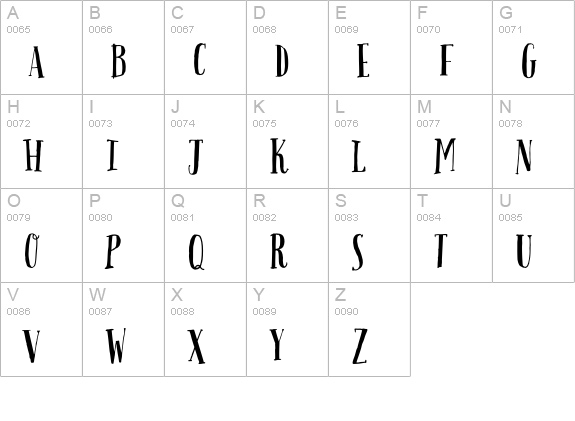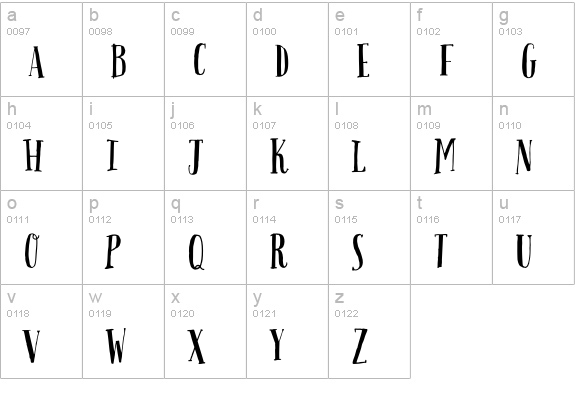
PacificNorthwestRegular Font Details
PacificNorthwestRegular font is a stunning typeface inspired by the rugged beauty of the Pacific Northwest region. With its clean lines and modern style, this font is perfect for a wide range of design projects, from branding to packaging to web design. This versatile font is freely available to download at FontsMarket.com, allowing designers and creatives to easily access and use it in their work. Its bold yet elegant appearance makes it a great choice for both digital and print applications, adding a touch of sophistication to any project. Whether you're working on a logo, poster, or website, PacificNorthwestRegular font is sure to make a statement. Its timeless design and legibility make it a must-have in any designer's toolkit. Download it today and elevate your designs with this beautiful and free font.